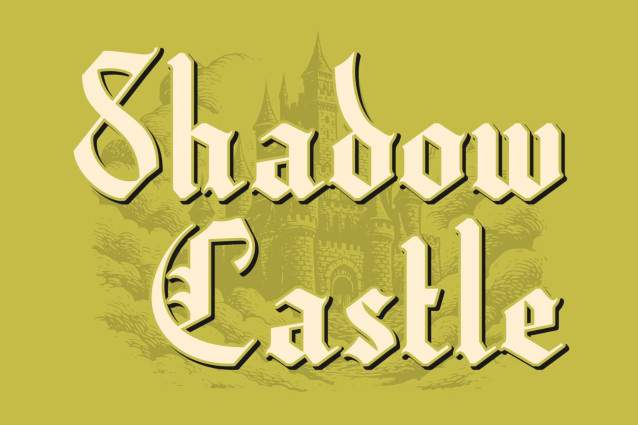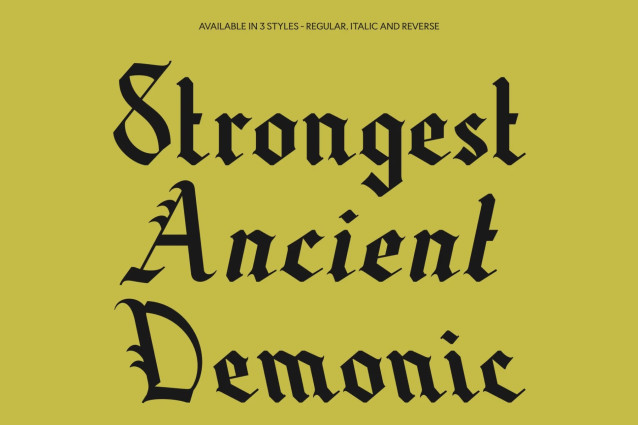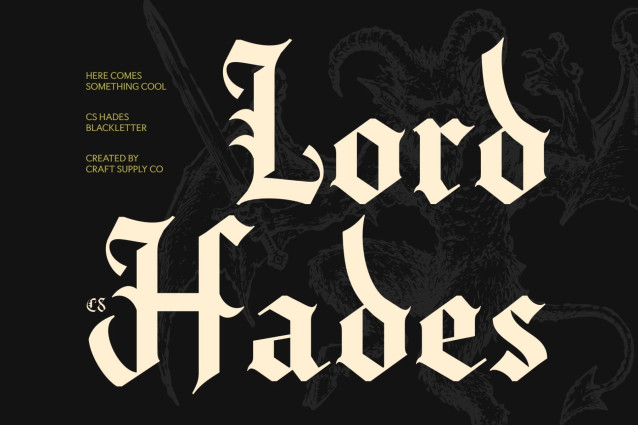
CS Hades – Blackletter Display Font: Where Gothic Drama Meets Ornamental Heritage
Sharp Angular Strokes with Ornamental Beauty
This is a blackletter display font that embraces the dramatic elegance of traditional Gothic typography. Featuring sharp angular strokes, intricate ornamental details, and bold medieval-inspired forms, it creates a striking visual presence that feels powerful, mysterious, and steeped in history. Every character reflects the craftsmanship of classic Blackletter while delivering exceptional impact for modern display design.
Historic Elegance with Dramatic Presence
Inspired by centuries of Gothic calligraphy, this font preserves the rich visual tradition of historic manuscripts while refining its construction for contemporary creative work. Its expressive letterforms balance decorative complexity with strong readability, allowing it to communicate authority, prestige, and timeless sophistication in every composition.
Bold Typography with Heritage Appeal
This font creates a distinctive visual identity that is both classic and unforgettable. Its commanding style evokes themes of tradition, craftsmanship, and mystery, making it an ideal choice for projects that seek to convey authenticity and bold artistic expression.